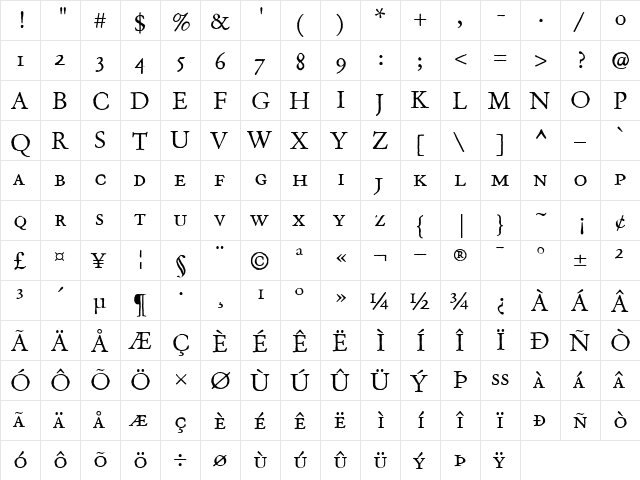
OldClaudeLPSmallCaps Roman
Design Context for OldClaudeLPSmallCaps Typeface
OldClaudeLPSmallCaps is a composed and adaptable typeface that performs quietly and consistently across a wide range of design contexts.